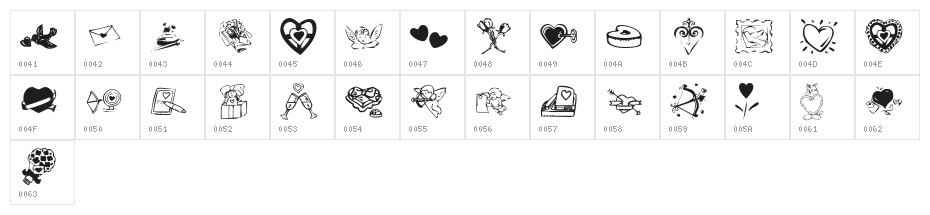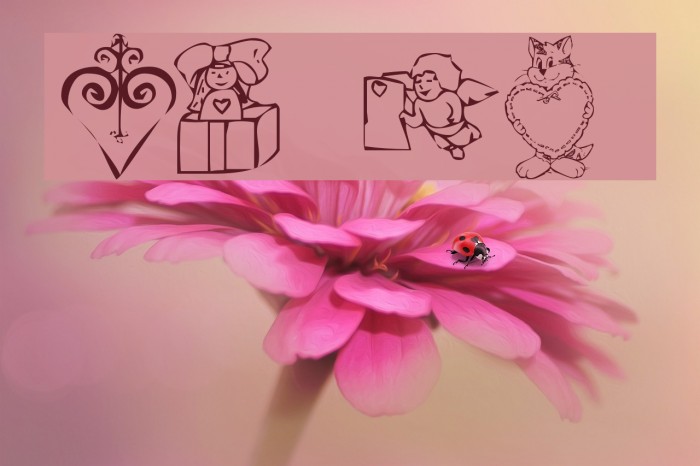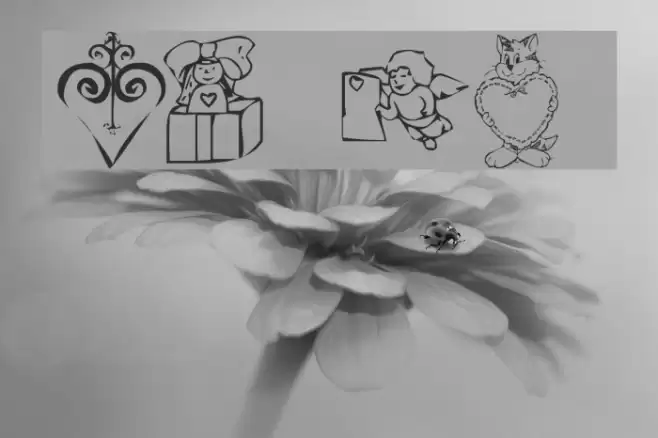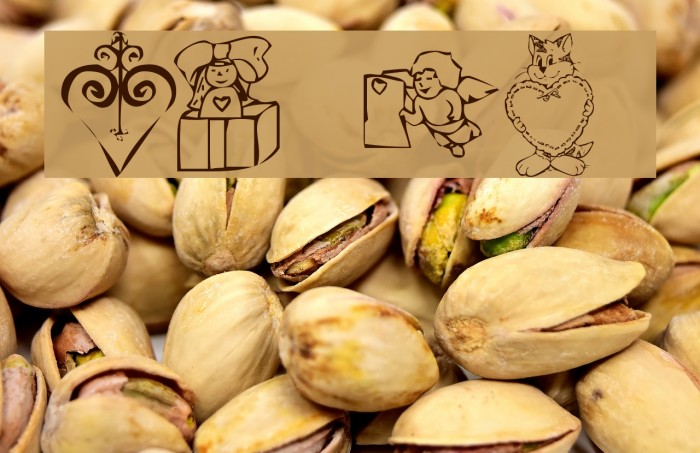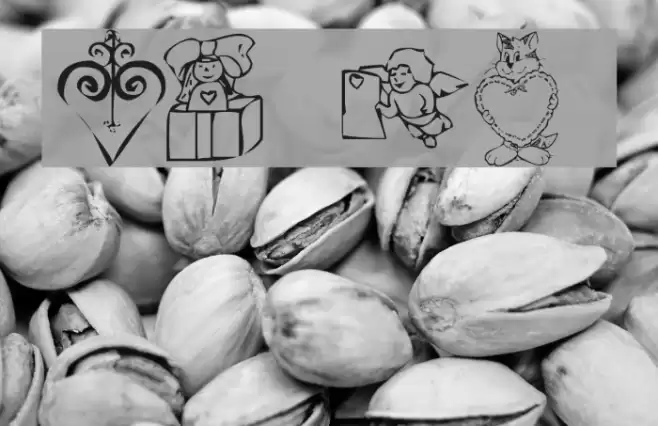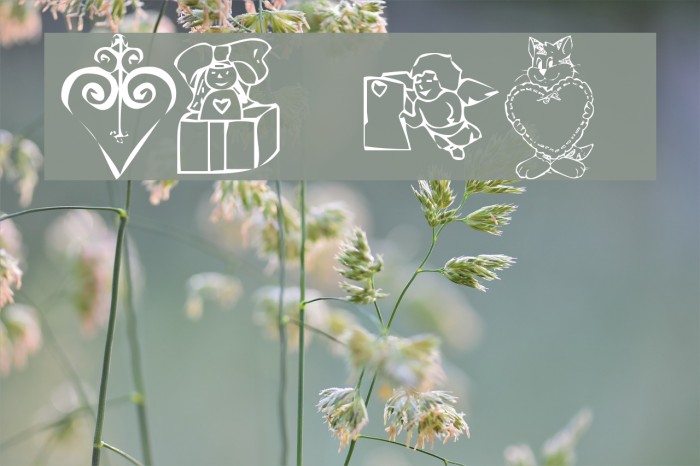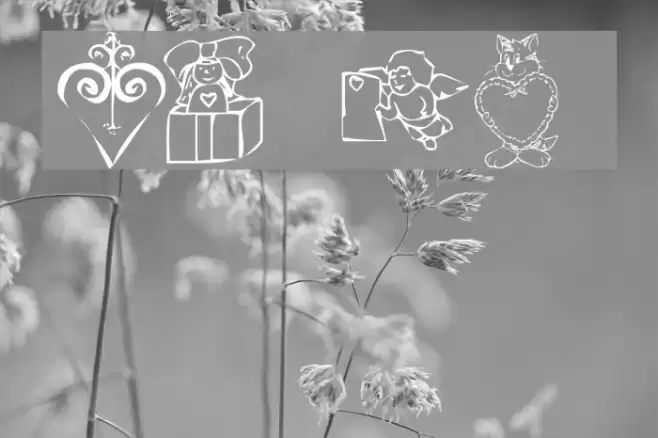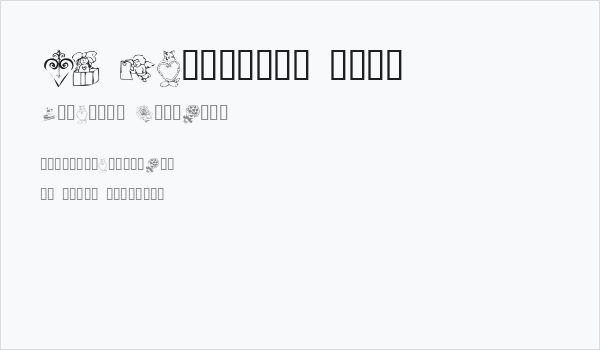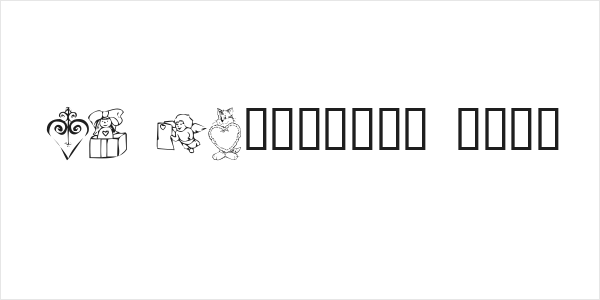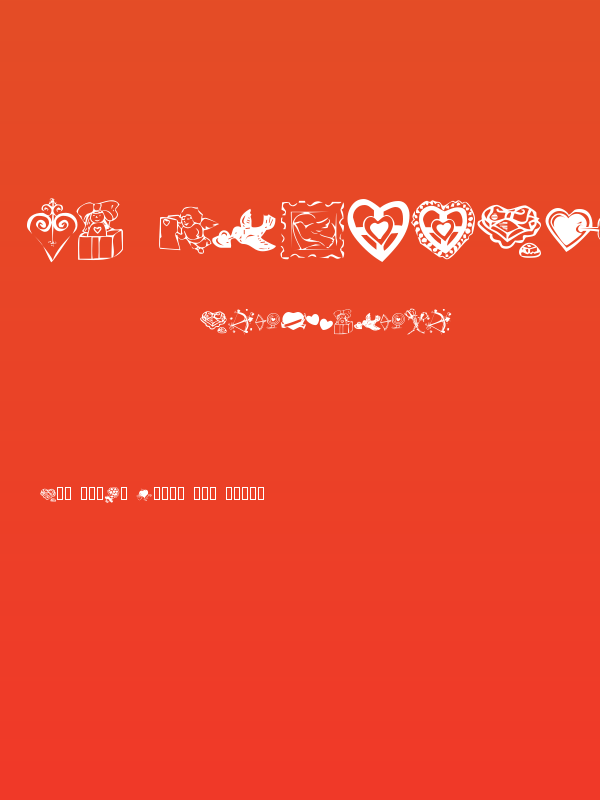
KR Valentine 2003 Font
KR Valentine 2003 Description
This is a decorative dingbat font featuring a variety of Valentine-themed icons and symbols. Each character is represented by a unique graphic, including hearts, cupid arrows, roses, and other romantic motifs. The style is playful and whimsical, making it ideal for projects that require a touch of love and affection. The icons are detailed and vary in complexity, offering a wide range of visual elements to choose from. This font is perfect for adding a festive and romantic flair to any design, especially around Valentine's Day.
| Use Case | Logos, Headlines, Decorative elements |
| Proposed Projects | Ideal for Valentine's Day cards, romantic event invitations, love-themed posters, and festive decorations. |